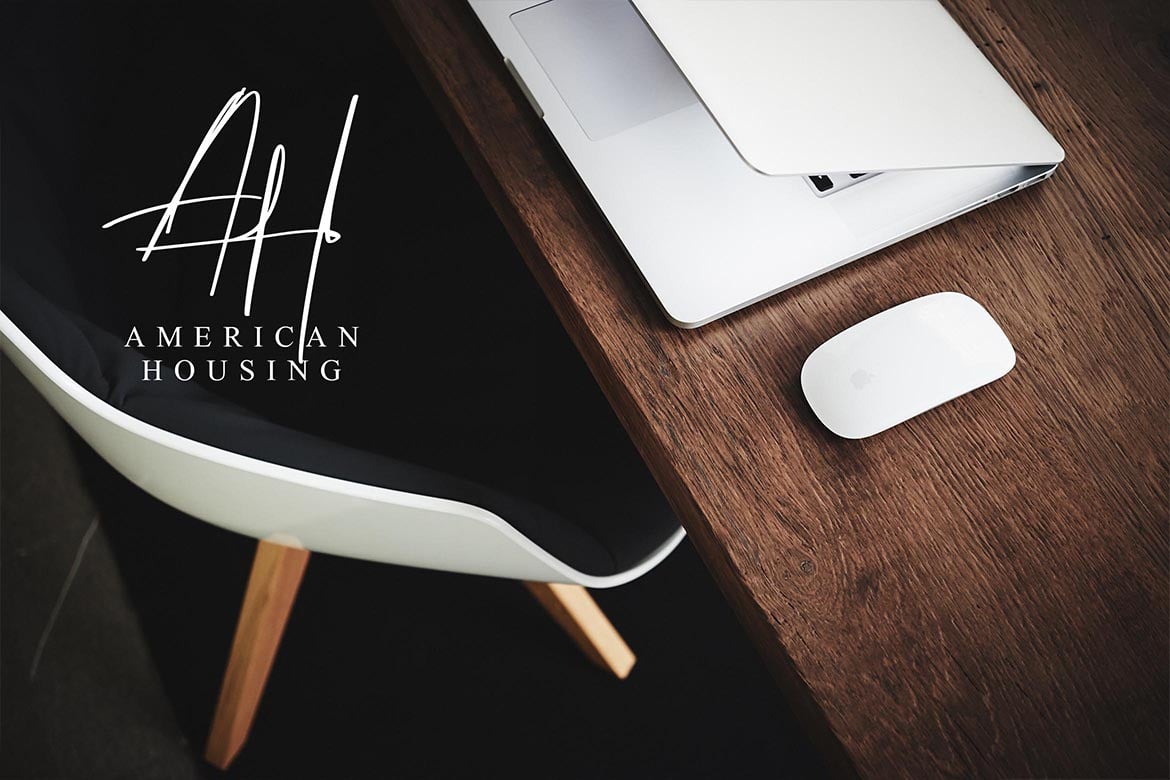
Hamilton – Elegant Signature Font
Hamilton – Elegant Signature Font is a versatile typeface ideal for various projects, including logos, branding, posters, blog headers, advertisements. The free version includes a full set of uppercase and lowercase letters, available in OTF format.